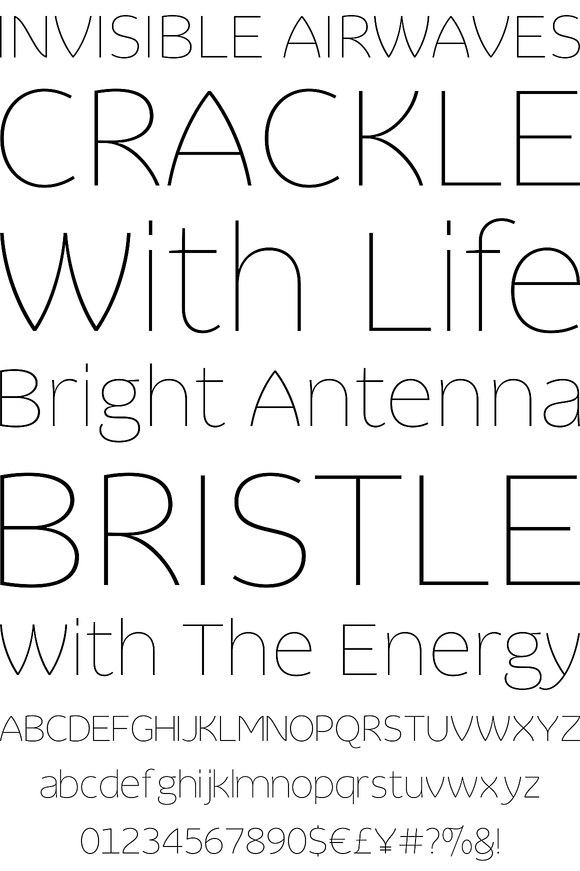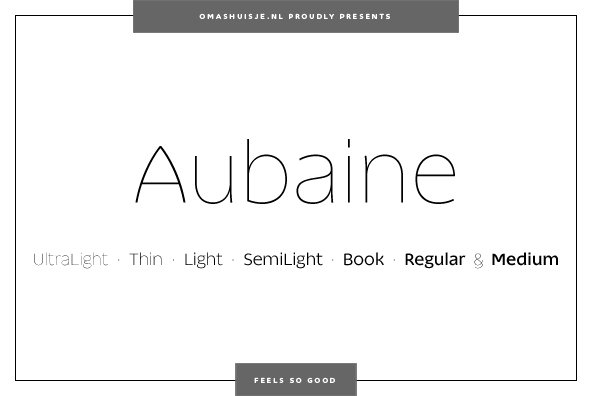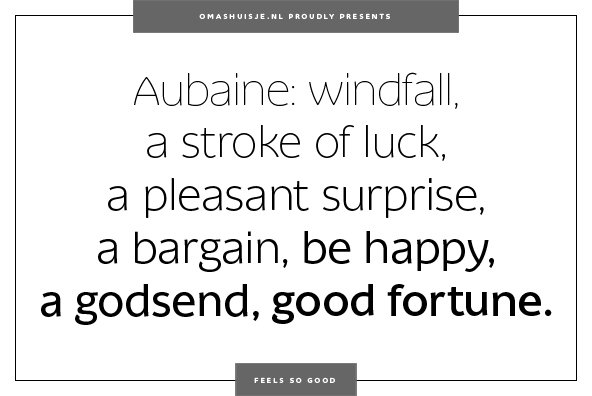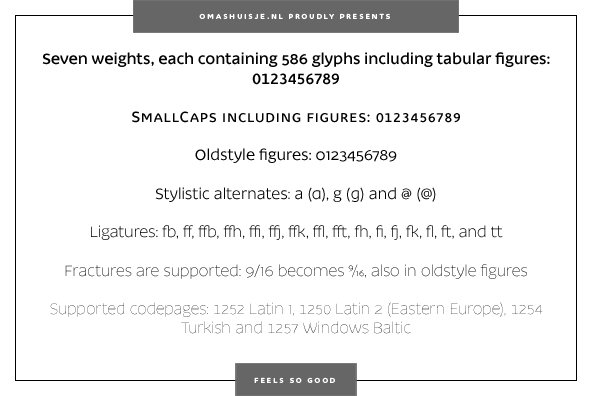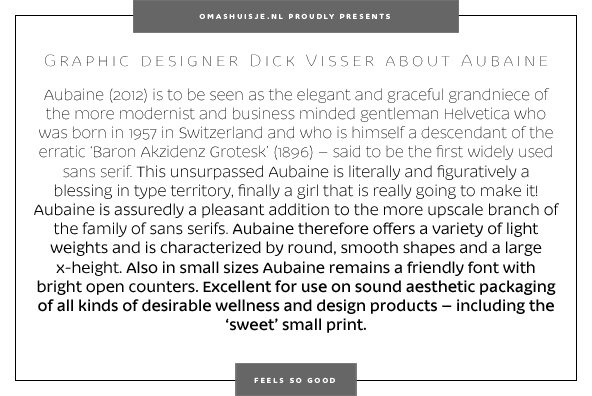
Aubaine (2012) is to be seen as the elegant and graceful grandniece of the more modernist and business minded gentleman Helvetica who was born in 1957 in Switzerland and who is himself a descendant of the erratic ‘Baron Akzidenz Grotesk’ (1896) – said to...
Aubaine Aubaine
Aubaine (2012) is to be seen as the elegant and graceful grandniece of the more modernist and business minded gentleman Helvetica who was born in 1957 in Switzerland and who is himself a descendant of the erratic ‘Baron Akzidenz Grotesk’ (1896) – said to be the first widely used sans serif. This unsurpassed Aubaine is literally and figuratively a blessing in type territory, finally a girl that is really going to make it! Aubaine is assuredly a pleasant addition to the more upscale branch of the family of sans serifs. Aubaine therefore offers a variety of light weights and is characterized by round, smooth shapes and a large x-height. Also in small sizes Aubaine remains a friendly font with bright open counters. Excellent for use on sound aesthetic packaging of all kinds of desirable wellness and design products – including the ‘sweet’ small print.